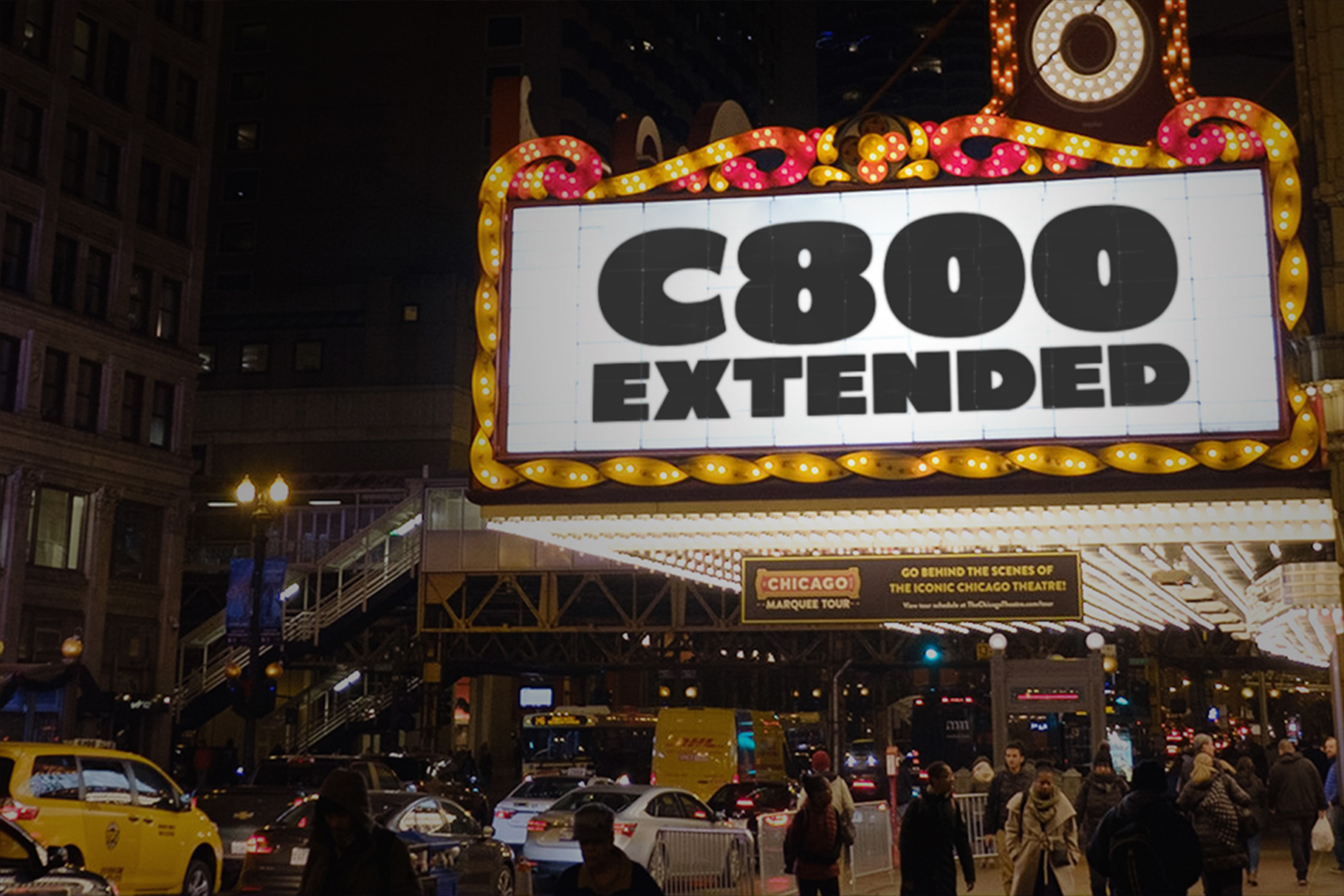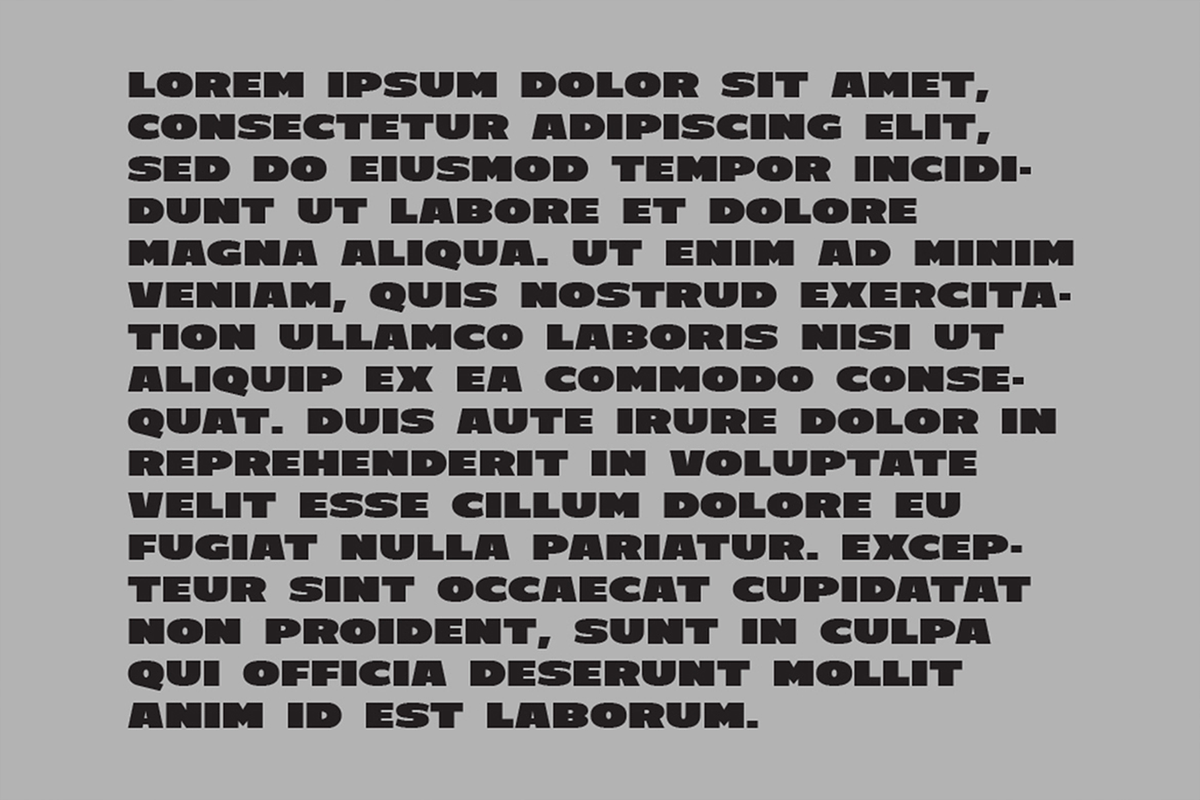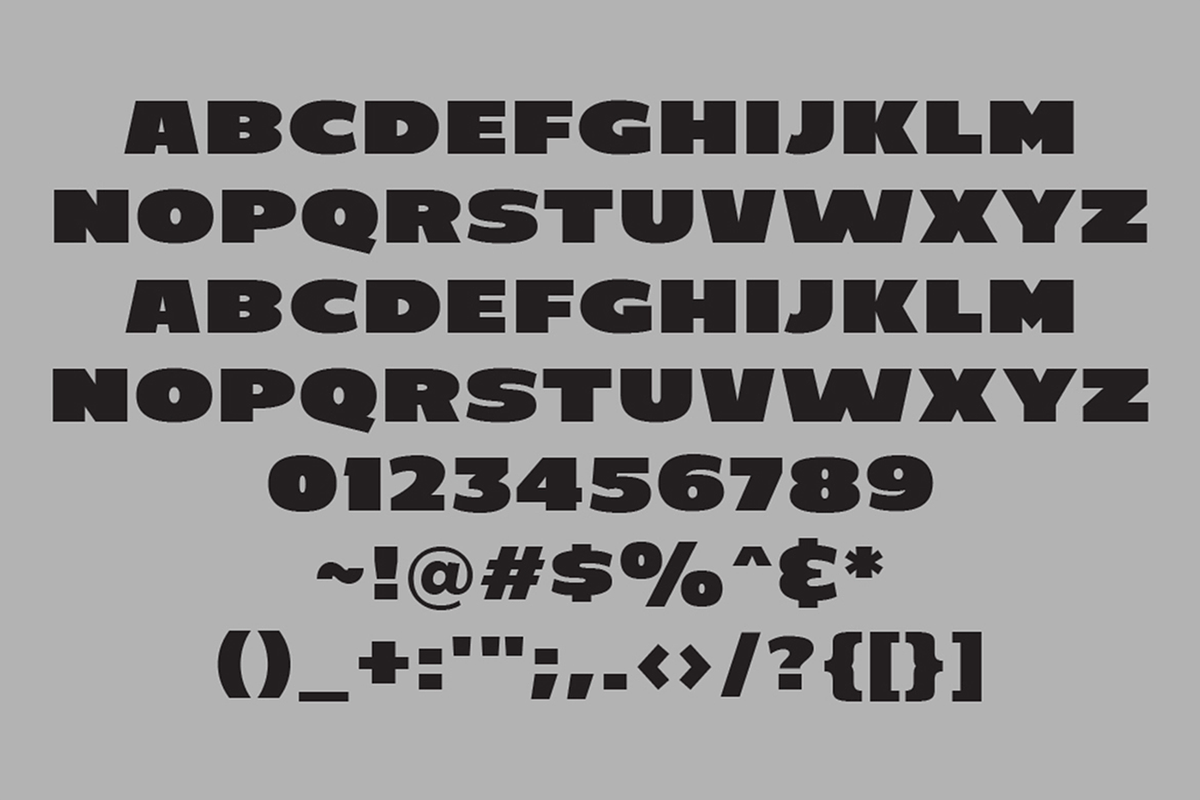
C800 Extended – Bold Sans Fonts
An elevated version of C800 font from our freebies a while ago. To catch up on the trend in visual nowadays. Perfectly fit for poster, magazine, logo, branding, sign, label, etc.